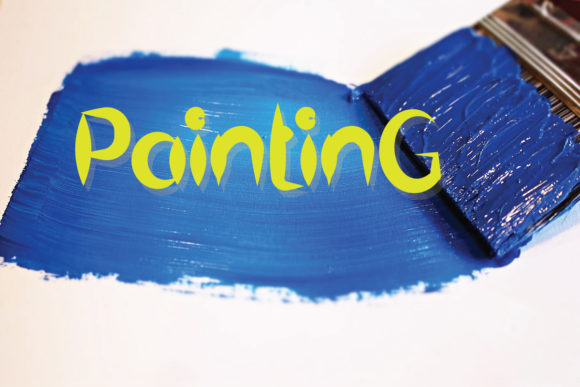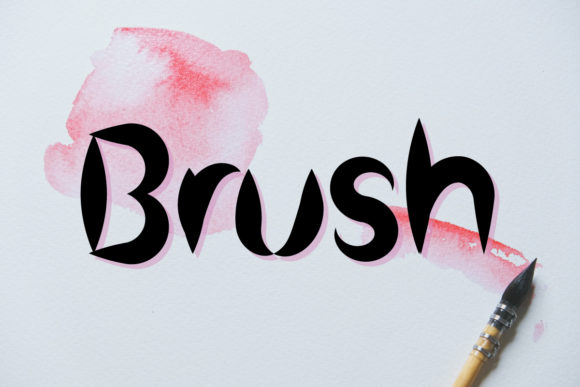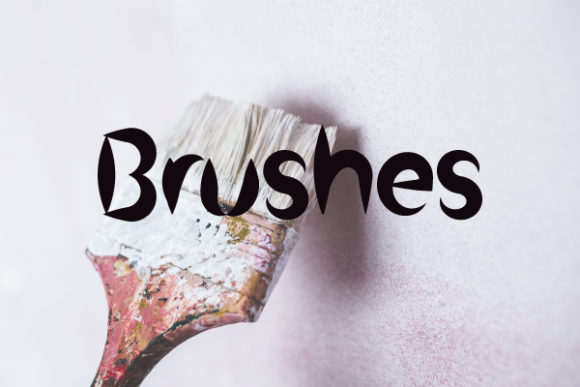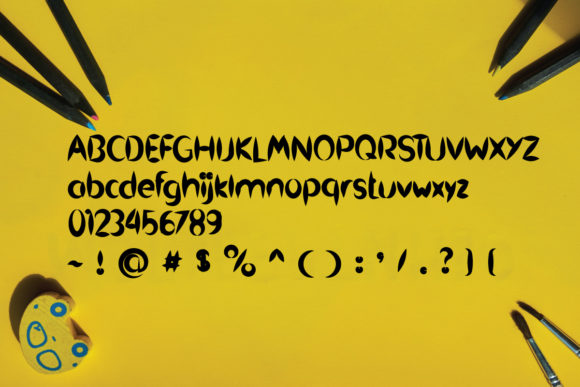
Unlocking the Power of Creativity: Introducing the Coloring Font
Have you ever found yourself in a creative rut, staring at a blank canvas or a blank page, searching for that spark of inspiration? We’ve all been there. But what if I told you that sometimes, all it takes is a simple yet bold font to set your imagination free? Enter the Coloring Font, a fun and casual display font that’s perfect for unleashing your creativity.
Designed to be versatile and adaptable, the Coloring Font is ideal for a wide range of applications, from branding and product packaging to invitations, quotes, and even logos. As a designer, you’ll appreciate its simplicity and boldness, making it a valuable addition to your creative arsenal. Whether you’re working on a personal project or a client brief, the Coloring Font is sure to bring a touch of excitement and playfulness to your designs.
Key Features of Coloring Font
- Unique Character Set: The Coloring Font features a set of 90 unique characters, including symbols, icons, and graphics, that can be used to create colorful designs and artwork.
- Color Palette: The font includes a built-in color palette with 12 predefined colors, allowing users to easily switch between different hues and shades.
- Customization: Users can customize the font by adjusting the size, color, and style to suit their design needs.
Review of “Coloring Font”
Overall, I’m a fan of “Coloring Font”. The concept is unique and can add a touch of creativity to digital designs. ✨ The font’s versatility in being able to change colors with a single click is a major advantage. It’s perfect for designers who want to add a pop of color to their work without having to manually change the font color.
One of the things that stood out to me is the wide range of color options available. It’s not just limited to the standard color palette, but also includes some unique and creative color combinations. ✨ The font is also highly customizable, allowing designers to adjust the color, size, and style of the text to suit their needs.
While “Coloring Font” is a great tool, there are a few limitations that should be noted. ⚠️ One of the main issues is the lack of support for certain file formats, such as EPS and AI. This can be a problem for designers who work with these file types on a regular basis. Additionally, the font can be a bit glitchy at times, especially when used in conjunction with other design elements.
Despite the limitations, I would still recommend “Coloring Font” to designers who are looking for a unique and creative way to add color to their work. With its wide range of color options and high level of customization, it’s a great tool for anyone who wants to take their designs to the next level.
- Wide range of color options
- High level of customization
- Perfect for adding a pop of color to designs
Tips for Getting the Most Out of Coloring Font
Experiment with different colors and settings to achieve unique effects.
Use Coloring Font to add visual interest to your designs and make them stand out.
Combine Coloring Font with other design elements to create a cohesive and engaging visual identity.
Coloring Font is ideal for:
Designing eye-catching social media graphics and ads.
Creating engaging presentations and reports.
Adding visual interest to blog posts and articles.